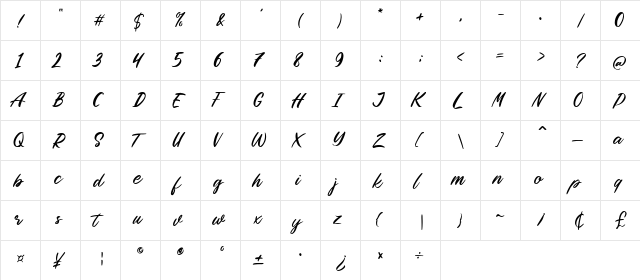
Symphony Regular
| Foundry | adinuritype Studio |
| Designer | adinuritype |
Design Context for Symphony Typeface
Symphony is a composed and adaptable typeface that performs quietly and consistently across a wide range of design contexts.